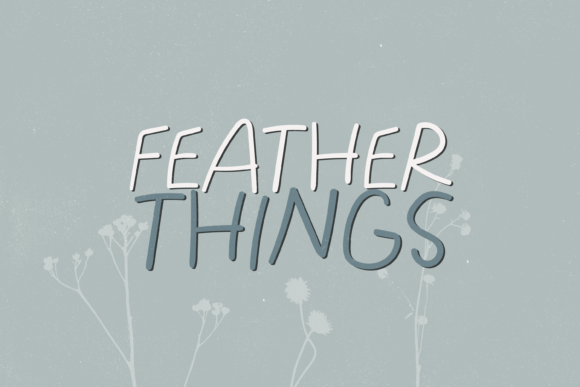
Have you ever stumbled upon the perfect font and felt an instant rush of creative excitement? That’s exactly what happens when you discover the Feather Things Font. Its light and quirky handwritten style is the perfect antidote to the usual sleek and modern typography we often see in design.
This charming font is designed to bring a smile to your face and inspire you to think outside the box. With Feather Things Font, you can add a touch of playfulness and whimsy to any design project, from branding and advertising to editorial and social media graphics.
As a designer, you know how valuable it is to have a versatile font that can adapt to different styles and moods. Feather Things Font is that and more – a reliable companion that will help you create standout designs that capture the attention of your audience.
Key Features of Feather Things Font
- Unique Characteristics: The Feather Things Font features a distinctive, hand-drawn design with intricate details and subtle texture, giving it a unique and eye-catching appearance.
Review of Feather Things Font
Overall, I think Feather Things Font is a cute and charming font, perfect for designs that need a touch of whimsy. ✨ The varying line weights and stylistic sets offer a lot of flexibility, allowing designers to create unique and interesting combinations. ✨ The font also includes a range of special characters, including arrows and symbols, which can add an extra layer of visual interest to designs. ✨
However, there are some limitations to consider. ⚠️ The font can feel a bit cluttered and overwhelming when used in large blocks of text, which may make it difficult to read. ⚠️ Additionally, some of the characters may not be fully compatible with certain operating systems or software, which could cause display issues. ⚠️
- Multiple line weights and stylistic sets
- Range of special characters, including arrows and symbols
- Cute and charming aesthetic
- Fully editable and scalable
Overall, I would recommend Feather Things Font for designs that need a playful and eye-catching touch. While it may not be suitable for all types of projects, it’s a great option for anyone looking to add a bit of whimsy to their work.
Use Feather Things Font for creative and whimsical designs, such as invitations, posters, and social media graphics.
Pair it with bold colors and playful graphics to create a visually appealing design.
Experiment with different font sizes and styles to add depth and interest to your design.
Feather Things Font is perfect for:
Invitations and event graphics
Social media graphics and ads
Children’s book illustrations and design
Creative and whimsical branding
Alternatives to Feather Things Font
Lato is a clean, modern sans-serif font. It is suitable for use in various contexts, including titles, body text, and digital interfaces. Lato is more versatile and has a broader range of styles compared to Feather Things Font, making it a popular choice for designers.
Comparison to Feather Things Font: Lato has a more geometric and structured design, whereas Feather Things Font is more decorative and playful. Lato is also more suitable for large-scale typography, whereas Feather Things Font is better suited for smaller text sizes.